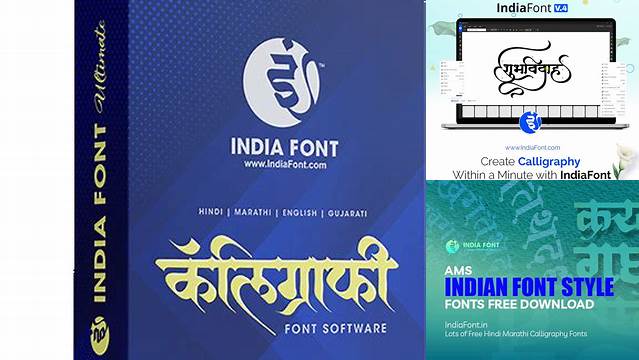
India Font V3: Free Download & Guide
Understanding India Font V3: What's the Big Deal?
Hey guys, let's dive into the exciting world of India Font V3! If you're into graphic design, typography, or just love making your documents look unique, you've probably heard about this gem. India Font V3 is a fantastic tool that offers a wide array of stylish and culturally relevant fonts, specifically designed to add that special touch to your creative projects. Whether you're working on a website, a poster, a book cover, or even just a personal invitation, having the right font can totally transform your output. India Font V3 doesn't just give you letters; it gives you character. It's all about capturing a certain essence, a vibe that resonates with Indian culture and aesthetics. Think intricate patterns, elegant scripts, and bold, expressive lettering – India Font V3 has it all. Plus, the fact that you can get it for free download makes it super accessible for everyone, from seasoned professionals to hobbyists just starting out. This means you don't need to break the bank to elevate your designs. It’s a powerful resource that empowers creativity without demanding a hefty price tag. We'll explore why this font pack is so popular and how you can leverage its diverse collection to make your designs truly stand out from the crowd. Get ready to explore a world of typographic possibilities and learn how to seamlessly integrate these beautiful fonts into your workflow. It's more than just a font; it's a gateway to a richer, more visually engaging design experience. The versatility offered by India Font V3 is truly remarkable, allowing for a broad spectrum of applications across various digital and print media. Its design ethos is rooted in celebrating the rich tapestry of Indian artistic heritage, making it a go-to choice for projects aiming for authenticity and cultural flair. This accessibility, coupled with its aesthetic appeal, has cemented India Font V3's status as a favorite among designers worldwide.
Why India Font V3 is a Designer's Dream Tool
So, why is India Font V3 free download such a hot topic among designers? It boils down to quality, versatility, and accessibility. Firstly, the quality of the fonts in the India Font V3 pack is exceptional. These aren't just your run-of-the-mill fonts; they are meticulously crafted to offer clear readability, aesthetic appeal, and a distinctive cultural flavor. You'll find a range of styles, from elegant calligraphic scripts that evoke traditional Indian artistry to bold, modern sans-serifs that are perfect for contemporary branding. This diversity means you can find the perfect font for almost any project. Need something sophisticated for a wedding invitation? There’s a script for that. Looking for something punchy for a marketing flyer? India Font V3 has got you covered. The free download aspect is, of course, a massive draw. In the design world, software and assets can get expensive quickly. India Font V3 provides a professional-grade font collection without the hefty price tag, democratizing high-quality typography. This allows students, freelancers, and small businesses to access premium design elements that might otherwise be out of reach. Furthermore, the usability of India Font V3 is top-notch. The fonts are typically well-organized, easy to install, and compatible with most design software, including Adobe Creative Suite, Microsoft Office, and various web design tools. This seamless integration means less time fiddling with technicalities and more time focusing on creative execution. The fact that it’s a v3 also implies a level of refinement and improvement over previous versions, suggesting that any bugs have been ironed out and new, even better styles might have been added. It’s a tool that truly empowers you to bring your creative visions to life without compromise. The attention to detail in each character, the kerning, and the overall spacing contribute to a polished final product, making your work look professionally designed. This package represents excellent value, offering a wealth of typographic options that can significantly enhance the visual impact of any design project, ensuring that your message is not only communicated but also felt.
Unleashing Creativity: How to Use India Font V3 in Your Designs
Now that you’ve got India Font V3 free download sorted, the real fun begins: using it! The beauty of this font collection lies in its versatility. Let’s break down some practical ways to make your designs pop. For branding and logos, India Font V3 can offer a unique identity. Imagine a startup wanting to incorporate a subtle nod to Indian heritage; a sophisticated script from this pack could be perfect for a logo mark or brand name. For print materials like brochures, flyers, and posters, using a bold display font from India Font V3 for headlines can grab attention immediately. Pair it with a more subdued, readable font for body text to ensure clarity. Think about wedding invitations or event stationery. The elegant, flowing scripts in India Font V3 are ideal for conveying a sense of occasion and sophistication. You can use them for names, important dates, or even for the entire invitation text if the style fits. Web design is another area where these fonts shine. A distinctive headline font can set the tone for a website, while a unique body font can make reading a pleasure. Just ensure the web fonts are optimized for fast loading times. For social media graphics, India Font V3 fonts can help your posts stand out in a crowded feed. Use them for quotes, announcements, or promotional text to add visual interest and cultural context. Don't be afraid to experiment with layering and combining different fonts from the India Font V3 collection. For instance, pair a decorative script with a clean sans-serif to create a dynamic typographic hierarchy. You can also play with color and effects. Applying subtle gradients or textures can enhance the inherent beauty of these fonts. Remember, the key is to use them thoughtfully. Overuse of decorative fonts can make a design look cluttered. Always consider the overall message and audience. The goal is to enhance, not overwhelm. Explore different weights and styles within the pack to find the perfect match for each design element. The free download makes it easy to try out various combinations without any financial risk. This font pack is your playground for typographic expression, enabling you to infuse your work with a unique cultural resonance and aesthetic appeal that will surely impress your audience. Embrace the diversity and let your creativity flow!
Exploring the Diverse Styles within India Font V3
Guys, one of the absolute best things about the India Font V3 free download is the sheer variety of styles you get. It's not just one type of look; it's a whole spectrum of typographic expression. You'll find these fonts can be broadly categorized, offering solutions for virtually any design need. First up, we have the traditional Indian scripts. These are often inspired by historical writing systems and calligraphic traditions of India. They can feature intricate curves, flourishes, and a certain gravitas that adds a touch of elegance and cultural authenticity. These are perfect for projects that require a deep connection to Indian heritage, like religious texts, cultural event invitations, or historical documentaries. Then there are the modern interpretations. India Font V3 also includes contemporary fonts that take inspiration from Indian art and culture but present it in a sleek, modern way. Think clean lines, geometric shapes, and bold statements. These are fantastic for branding modern Indian businesses, edgy posters, or fashion-related designs where you want to blend cultural elements with a cutting-edge aesthetic. We also see decorative and display fonts. These are designed to make a statement and are typically used for headlines, titles, or short bursts of text where visual impact is key. They might incorporate patterns, unique ligatures, or unconventional letterforms that immediately catch the eye. Use these sparingly for maximum effect. And let's not forget the versatile sans-serifs and serifs. While the more decorative styles grab the headlines, India Font V3 often includes well-crafted, readable fonts that can serve as excellent body text or complementary fonts. These ensure that your designs are not only beautiful but also functional and easy to read, even in longer passages. The free download makes it easy to experiment with all these different styles. You can mix and match, pairing a decorative script for a heading with a clean sans-serif for the body copy. This allows for rich typographic contrast and hierarchy. Understanding these different categories helps you choose the right font for the right job, ensuring your design communicates effectively while showcasing the unique character of the India Font V3 collection. It’s this comprehensive range that makes the font pack so valuable for any designer looking to add a touch of distinctive flair to their work.
India Font V3: Enhancing Readability and Visual Appeal
Let's talk about something super important, guys: readability and visual appeal. When you're downloading fonts like India Font V3, you want them to look good, sure, but they also have to be easy to read, right? This font collection really strikes a great balance. Many of the fonts, especially those designed for body text or longer paragraphs, are crafted with legibility in mind. They might feature clear letterforms, good spacing (kerning and leading), and appropriate x-heights. This means that even when used in smaller sizes or for extended reading, the text remains clear and comfortable for the eyes. For instance, a well-designed sans-serif font from the India Font V3 pack can make your website content or blog posts highly accessible. It avoids the fussiness that can sometimes plague highly decorative fonts, ensuring your message gets across clearly. But it’s not just about being readable; it’s also about how it appeals visually. India Font V3 excels at adding a unique aesthetic flair. Even the more legible fonts often carry subtle design elements that hint at their cultural inspiration, adding a layer of sophistication without sacrificing clarity. Think about using a slightly stylized serif font for your next article; it adds a touch of class that a generic font just can't match. When you use the free download for display purposes – like headlines, titles, or call-to-action buttons – the fonts truly get to show off. They can add personality, evoke a specific mood, or highlight key information. A bold, impactful font from this collection can make a poster header unforgettable. The key is to pair them wisely. Use the highly decorative fonts for impact in short bursts, and reserve the cleaner, more readable styles for longer text. This strategic use ensures that your design is both aesthetically pleasing and functionally effective. The visual appeal isn't just in the style of the letters; it’s also in how they work together. The consistency within the India Font V3 family allows for harmonious pairings, creating a cohesive and professional look. Ultimately, the goal is to create designs that are not only beautiful to look at but also a pleasure to read, and India Font V3 certainly helps you achieve that.
Typography Tips: Mastering India Font V3 in Design Projects
Alright, let's level up your design game, guys! Now that you've got the India Font V3 free download, it's time to talk about mastering typography with these awesome fonts. It’s not just about slapping a cool font on your text; it’s about using it strategically to enhance your message. First tip: understand the mood. Each font in India Font V3 carries a different vibe. Is it elegant and traditional, or modern and bold? Choose a font that matches the emotion and message of your project. A wedding invitation needs a different feel than a tech startup's website, right? Use this understanding to guide your selection. Second, font pairing is key. Don't be afraid to mix fonts from the India Font V3 collection, but do it with purpose. A common technique is to pair a display font (like a decorative script) for headlines with a more readable font (like a clean sans-serif) for body text. Ensure the fonts complement each other rather than clash. Look for fonts with similar underlying structures or contrasting but harmonious styles. Third, hierarchy and scale. Use different font sizes, weights (bold, regular, light), and styles (italic) to guide the reader's eye. Make your headlines prominent, subheadings clear, and body text easily scannable. India Font V3 often offers multiple weights within a style, which is super helpful for creating this hierarchy. Fourth, spacing matters (a lot!). Pay attention to kerning (the space between specific letter pairs) and leading (the space between lines of text). Proper spacing improves readability and gives your text a polished, professional look. Many design programs allow you to adjust these settings. Even subtle tweaks can make a huge difference. Fifth, context is king. Where will your design be seen? If it's for web, ensure the fonts are web-safe or optimized for digital display. For print, consider the paper quality and printing method. India Font V3 fonts, being a free download, offer a great way to test these principles without financial commitment. Finally, don't overdo it. Stick to one or two font families from the India Font V3 pack for a single project to maintain consistency and avoid visual clutter. The goal is to make your design impactful and clear, and using typography effectively is the secret sauce. Experiment, play around, and trust your instincts – you’ll get the hang of it!